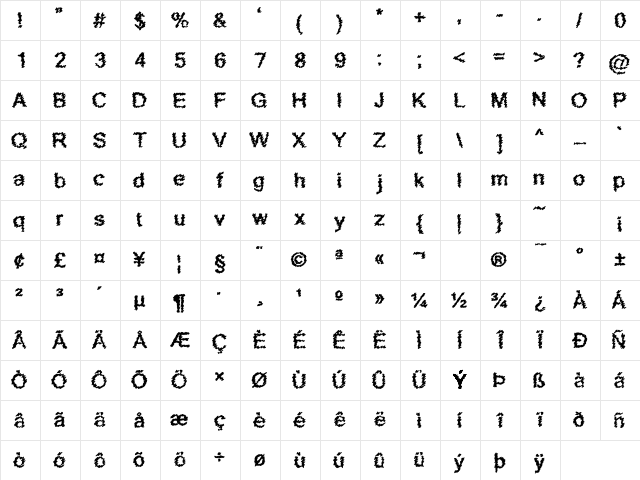
Scribbled Regular
Foundry: Adrian Candela
Designer: Adrian Candela
Design Context for Scribbled
Scribbled is a composed and adaptable typeface that performs quietly and consistently across a wide range of design contexts.
Pro Tip: Use Scribbled in both headline and body roles to test its range before committing to a single application.